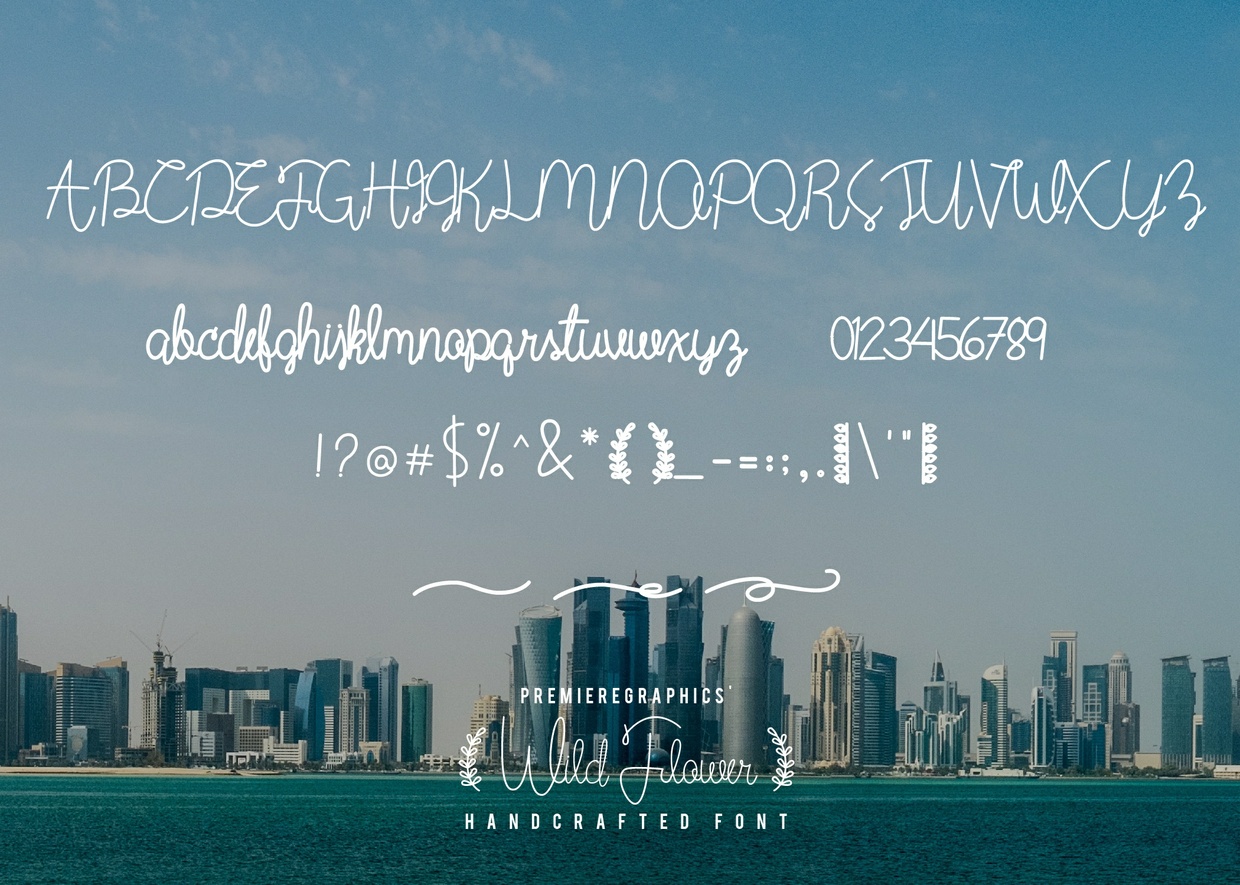
Wild Flower Script Font
Are you looking for a nice handwriting? I would like to introduce to you such a typeface, it is beautiful and professional. You will like it, add it to the fonts collection for your work. Introducing Wild Flower Script Font! Wild Flower Script designed and shared by PremiereGraphics. Wild Flower is a new script that is beautifully handwritten! This font is great for photos, for blogs, for logos and brands, etc. This is available for commercial use with its complete set of characters and underlines.